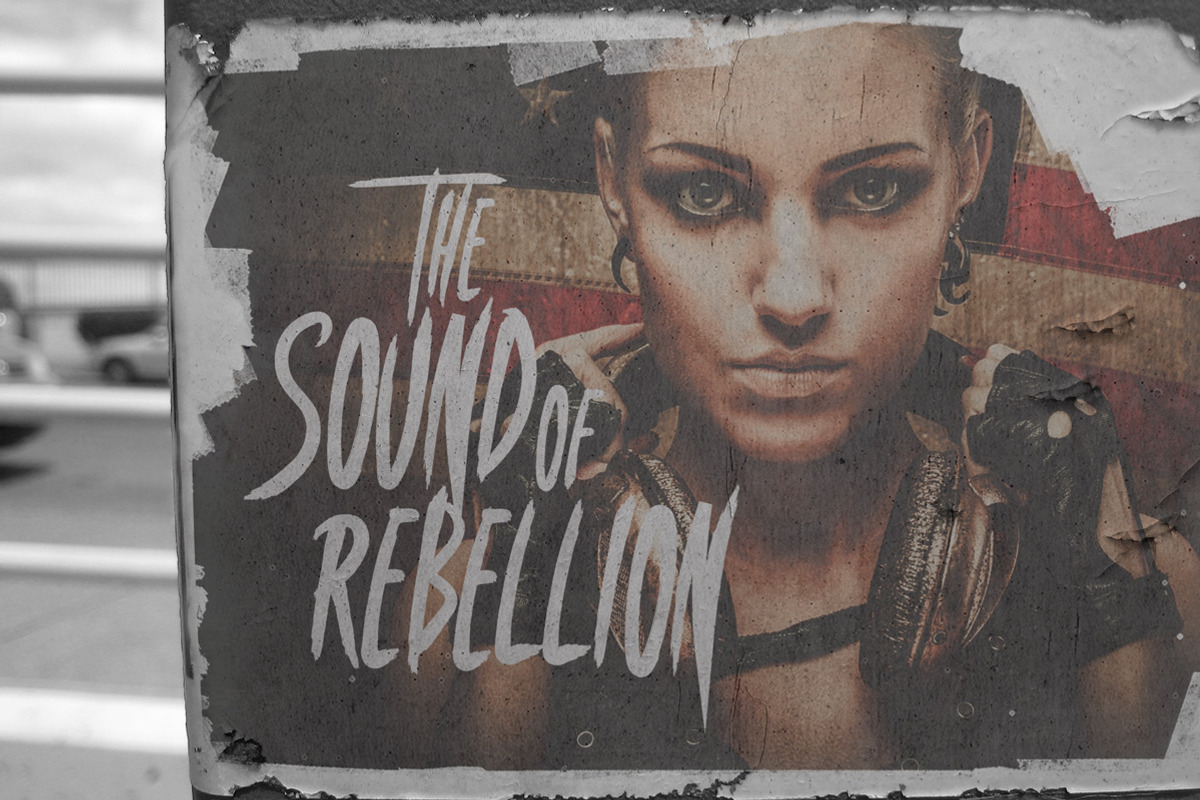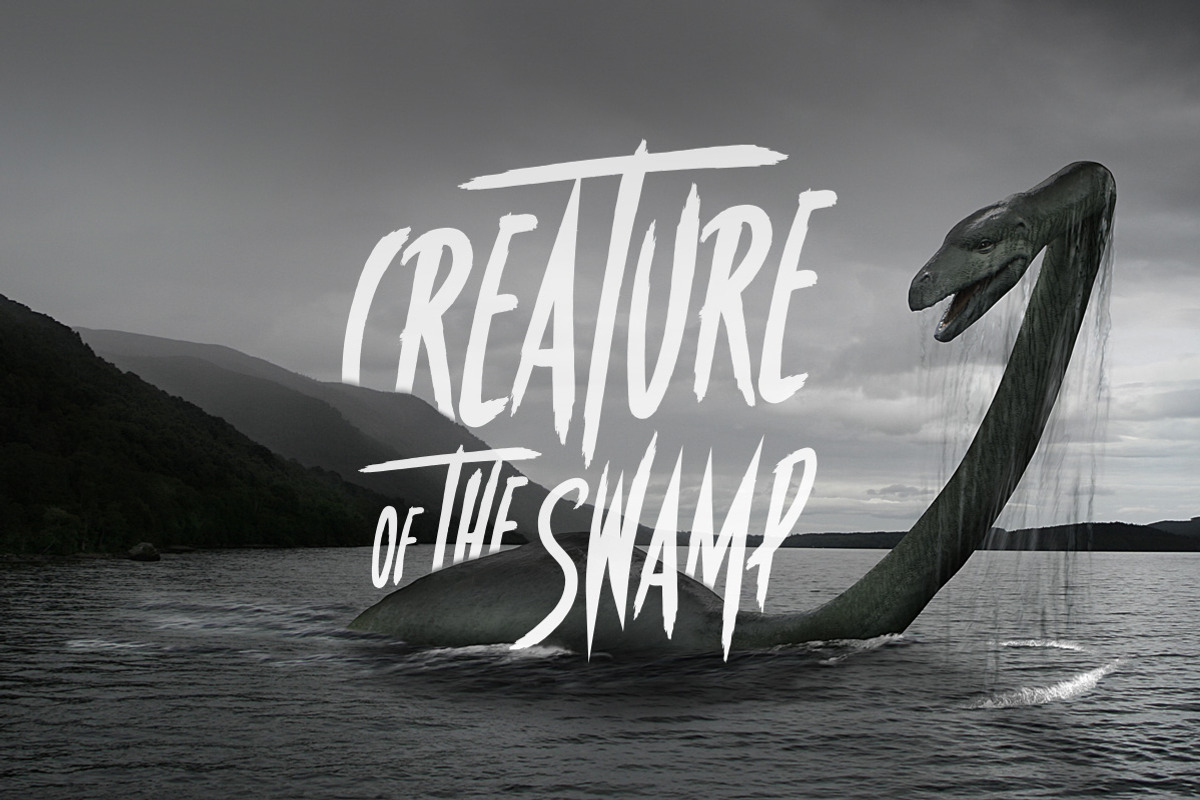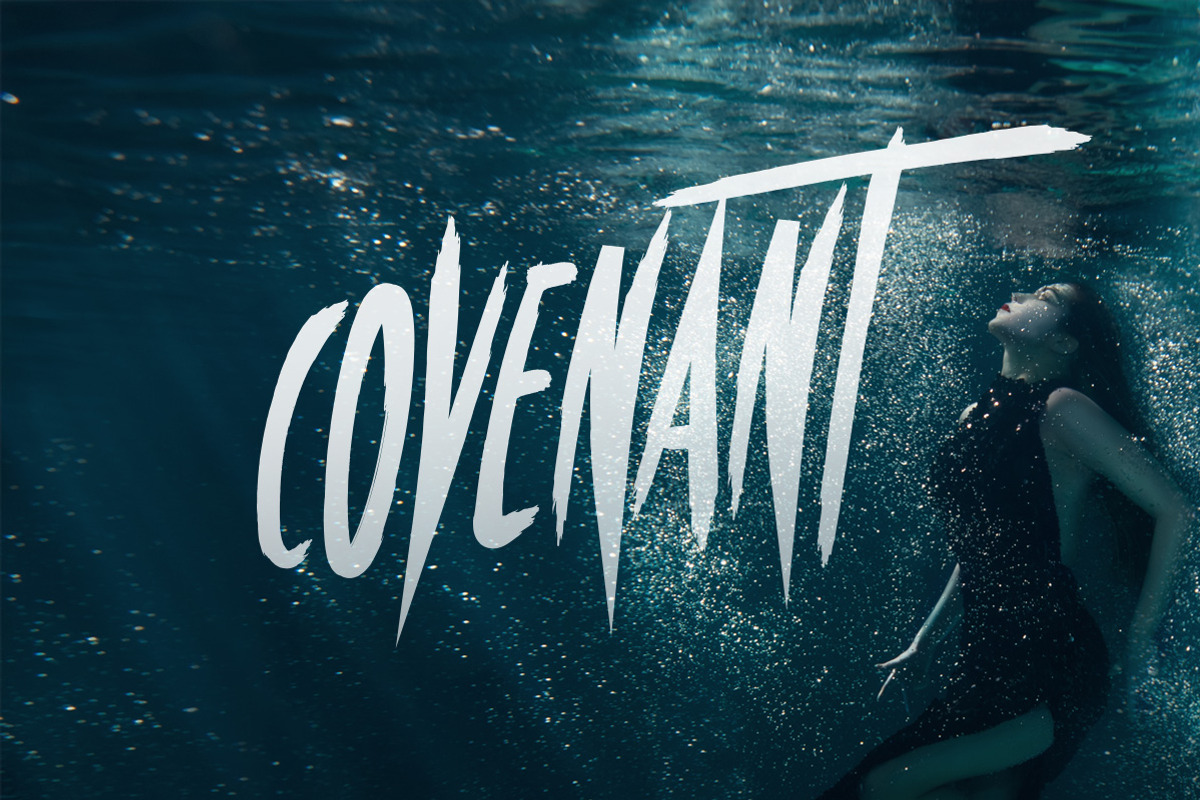
Covenant - Brush Font
Covenant - Brush Font by Tugcu Design Co. is a font selected for branding, posters, packaging, typography.
- Part of the Brush Font Bundle : https://crmrkt.com/VlQW6d Covenant is a brush font with uppercase letters, numbers and punctuation.
Covenant - Brush Font by Tugcu Design Co. fits naturally into Branding, posters, packaging, typography.